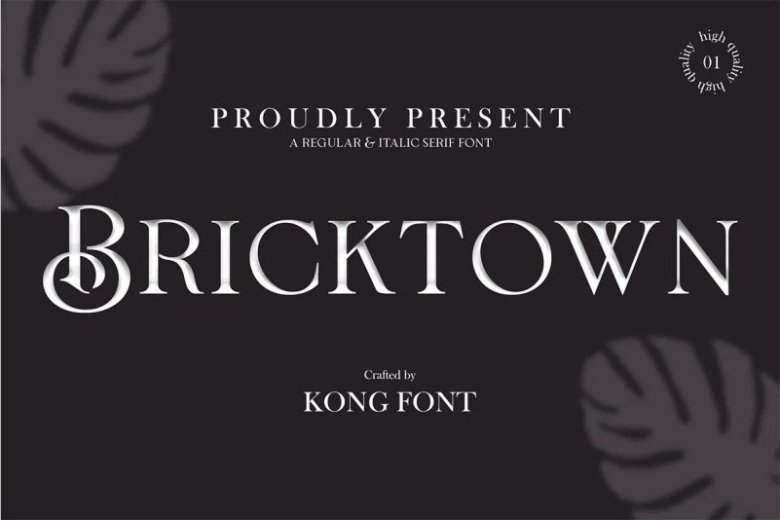
Bricktown Serif Font
Bricktown Serif Font is a classic elegant serif that comes with a twist. It has ligatures that will make everything more interesting. It’s designed and shared by fontkong. Get inspired by its authentic feel and use it to create gorgeous wedding invitations, lovely stationary art, eye-catching social media posts, and cute greeting cards.